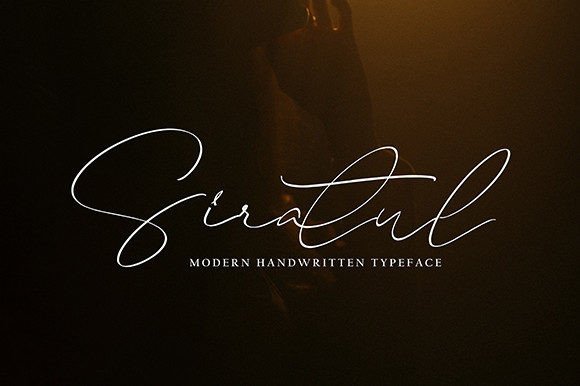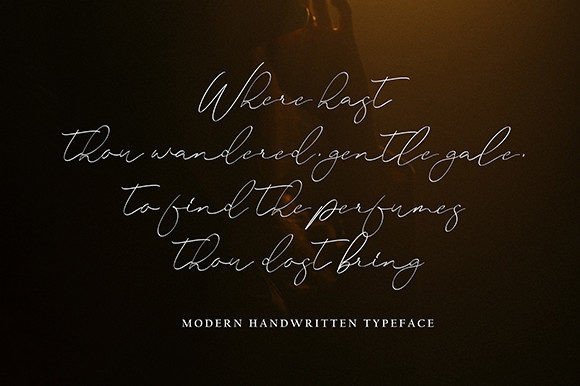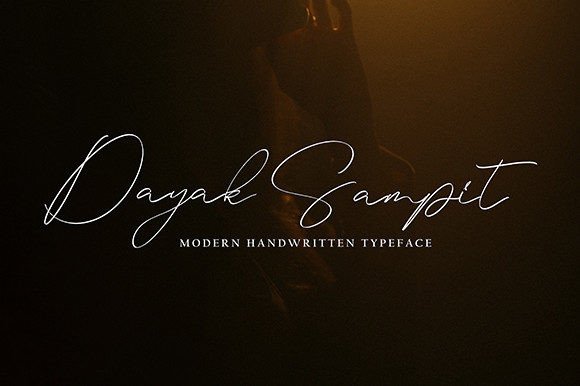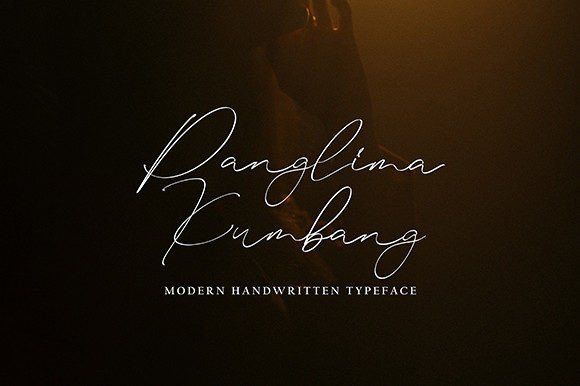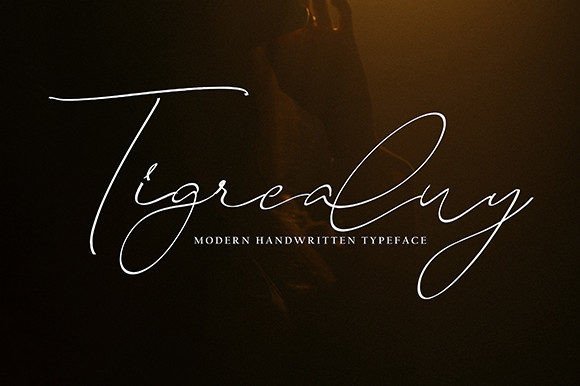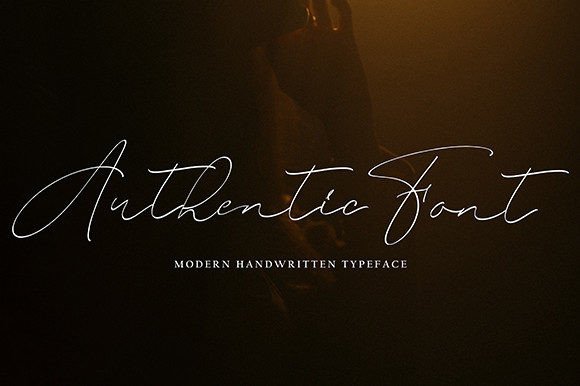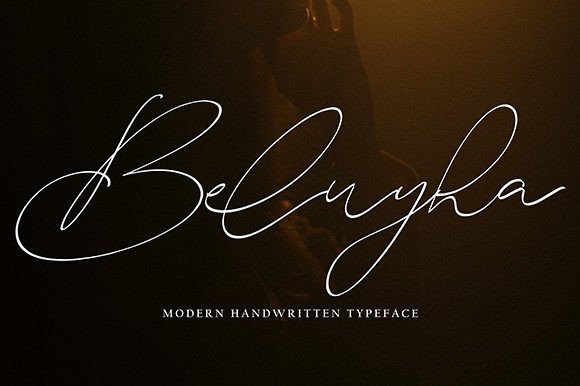
Introducing Beluyha Font: Elevate Your Creativity with this Dazzling Signature Script Font
Are you a designer, crafter, or DIY enthusiast looking for a font that can add a touch of elegance and sophistication to your projects? Look no further than Beluyha Font, a stunning signature script font that is sure to turn your creative ideas into true works of art. In this article, we’ll take a closer look at Beluyha Font, its features, and how you can use it to elevate your designs and DIY projects.
What is Beluyha Font?
Beluyha Font is a beautiful, hand-crafted signature script font that is perfect for a wide range of creative projects. Whether you’re looking for fonts for Instagram, calligraphy scripts for DIY projects, or elegant text for your website or blog, Beluyha Font is an excellent choice. Its delicate and dazzling design makes it stand out from other fonts, adding a touch of luxury and sophistication to any project.
Key Features of Beluyha Font
So, what makes Beluyha Font so special? Here are some of its key features:
• Unique and Elegant Design: Beluyha Font features a unique and elegant design that is sure to turn heads. Its delicate lines and curves make it perfect for adding a touch of sophistication to your projects.
• Signature Script Style: Beluyha Font is a signature script font that mimics the look of handwriting. It’s perfect for creating personalized and custom text for your projects.
• High-Quality and Readable: Beluyha Font is designed to be highly readable, even at small sizes. This makes it perfect for use in a wide range of projects, from social media graphics to website headers.
• Multilingual Support: Beluyha Font supports multiple languages, making it a great choice for designers and crafters who work with international clients or want to create projects for a global audience.
How to Use Beluyha Font in Your Projects
Beluyha Font is a versatile font that can be used in a wide range of projects. Here are some ideas to get you started:
• Instagram Graphics: Use Beluyha Font to create stunning Instagram graphics that showcase your brand or personality.
• DIY Projects: Add a touch of elegance to your DIY projects, such as handmade cards, gift tags, and scrapbooking pages.
• Website Headers: Use Beluyha Font to create beautiful website headers that add a touch of sophistication to your website.
• Branding and Packaging: Use Beluyha Font to create custom branding and packaging for your business or product.
Tips for Getting the Most out of Beluyha Font
Here are some tips for getting the most out of Beluyha Font:
• Experiment with Different Sizes and Colors: Don’t be afraid to experiment with different sizes and colors to find the perfect combination for your project.
• Pair it with Other Fonts: Beluyha Font pairs well with other fonts, so don’t be afraid to get creative and try out different font combinations.
• Use it for Headlines and Titles: Beluyha Font is perfect for use in headlines and titles, where its elegant design can really shine.
In conclusion, Beluyha Font is a stunning signature script font that is perfect for designers, crafters, and DIY enthusiasts who want to add a touch of elegance and sophistication to their projects. With its unique and elegant design, high-quality and readability, and multilingual support, Beluyha Font is an excellent choice for a wide range of creative projects. So why wait? Download Beluyha Font today and start elevating your creativity!